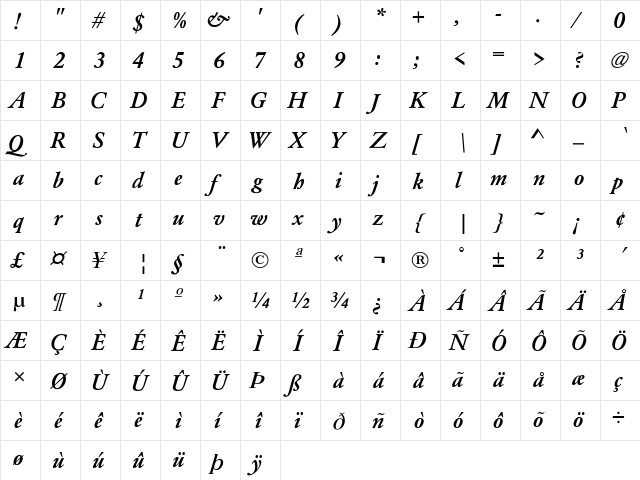
GaramondMedium-Normal-Italic Regular
Design Context for GaramondMedium-Normal-Italic Typeface
GaramondMedium-Normal-Italic offers clean, dependable letterforms without strong stylistic allegiance, making it a practical choice for designers who need flexibility. The dynamic lean of this cut emphasises speed and emphasis in any layout.
Pro Tip: Try GaramondMedium-Normal-Italic for annotation and caption copy alongside an upright companion — the contrast in angle creates a dynamic but ordered typographic system.